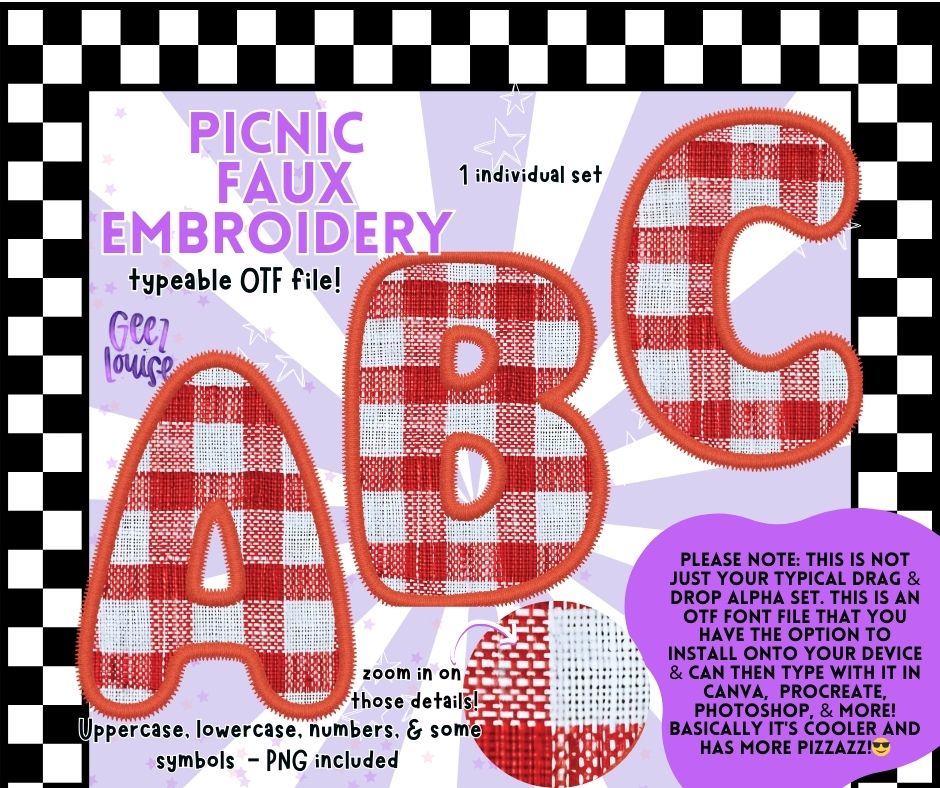
Bring on the backyard vibes with Picnic Faux Embroidery, a playful typeable OTF font that looks stitched to perfection! This gingham dream gives you all the charm of embroidered letters — without ever threading a needle. Featuring bright red checkered fabric textures and faux embroidery edges, it's perfect for summer projects, BBQ invites, country crafts, and farmhouse-style designs.
✅ Faux stitched gingham letters in bold red & white
✅ Ideal for summer, farmhouse, rustic, and Americana projects
Why You’ll Love It:
🍉 Gives that homemade stitched look without embroidery software
🧵 Adds cozy, cottagecore, and crafty charm